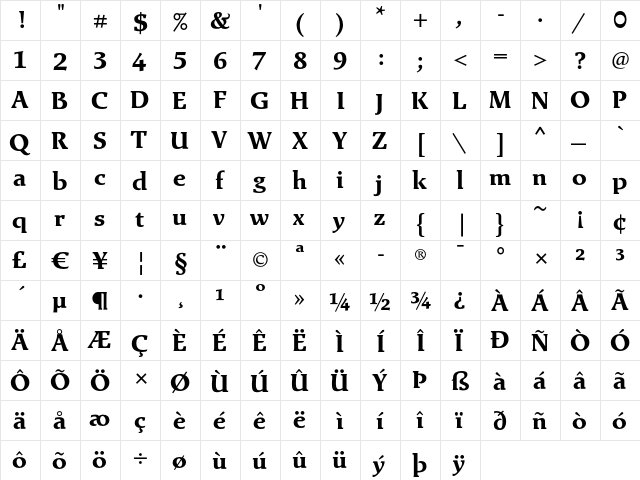
Exlibris Bold
Design Context for Exlibris Typeface
Exlibris takes a measured approach to typography — its balanced proportions and neutral character make it a reliable workhorse for both digital and print work. The heavy weight commands attention and anchors typographic hierarchies.